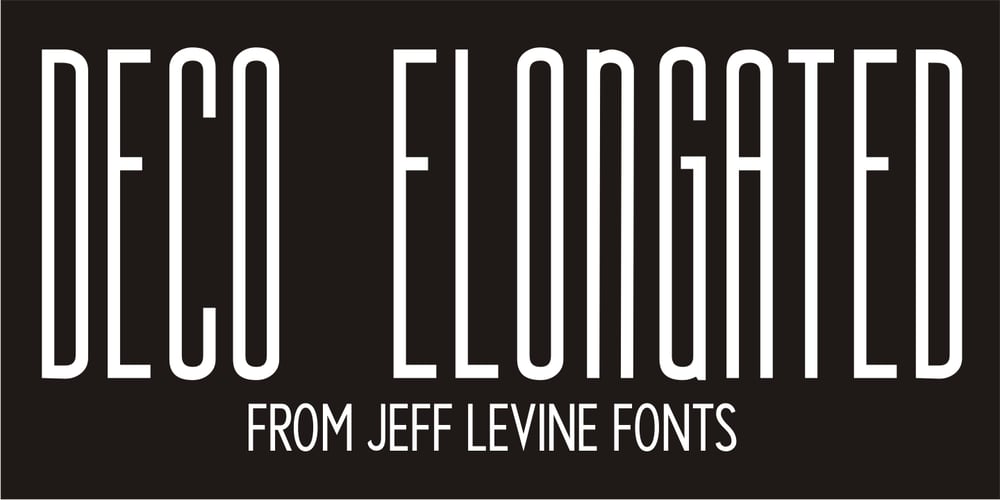
Deco Elongated JNL Font Family was designed by published by Jeff Levine. Deco Elongated JNL contains 1 styles and family package options. Tall and narrow in stature, elegant by design and Art Deco in style, Deco Elongated JNL is a wonderful type design for setting long lines of copy in less space. The retro elements of this font conjure up images of fine fashions, fancy nightclubs and big band music…